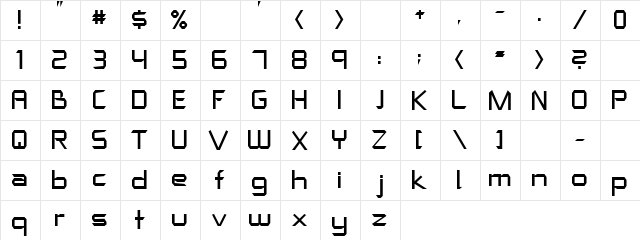
Metrostyle Cool Regular
Design Context for Metrostyle Cool Typeface
Metrostyle Cool is a composed and adaptable typeface that performs quietly and consistently across a wide range of design contexts.